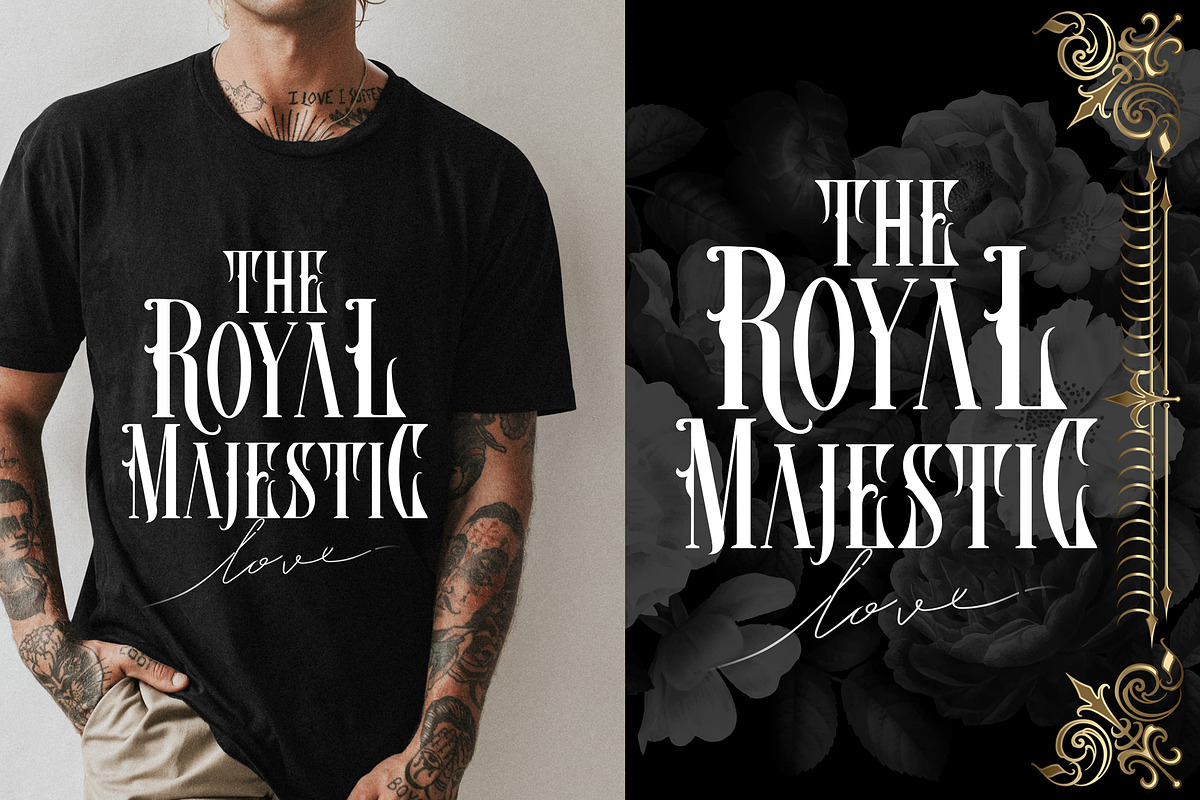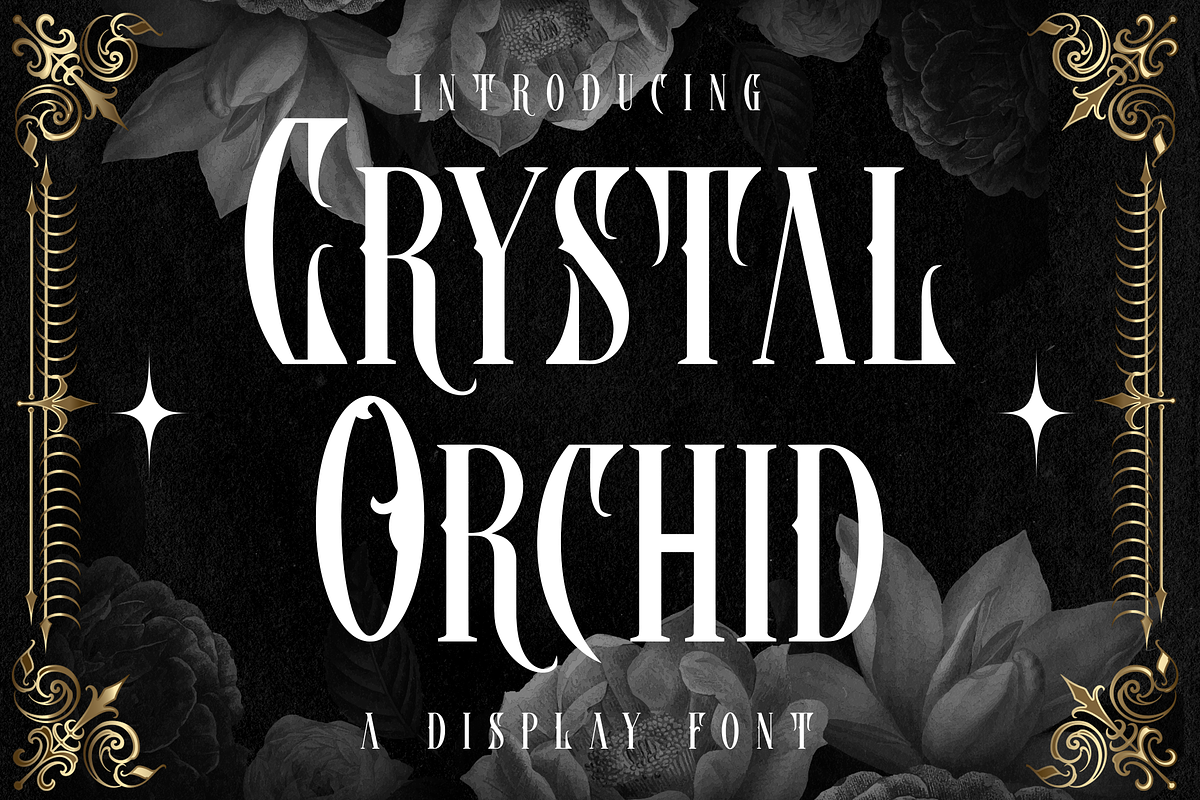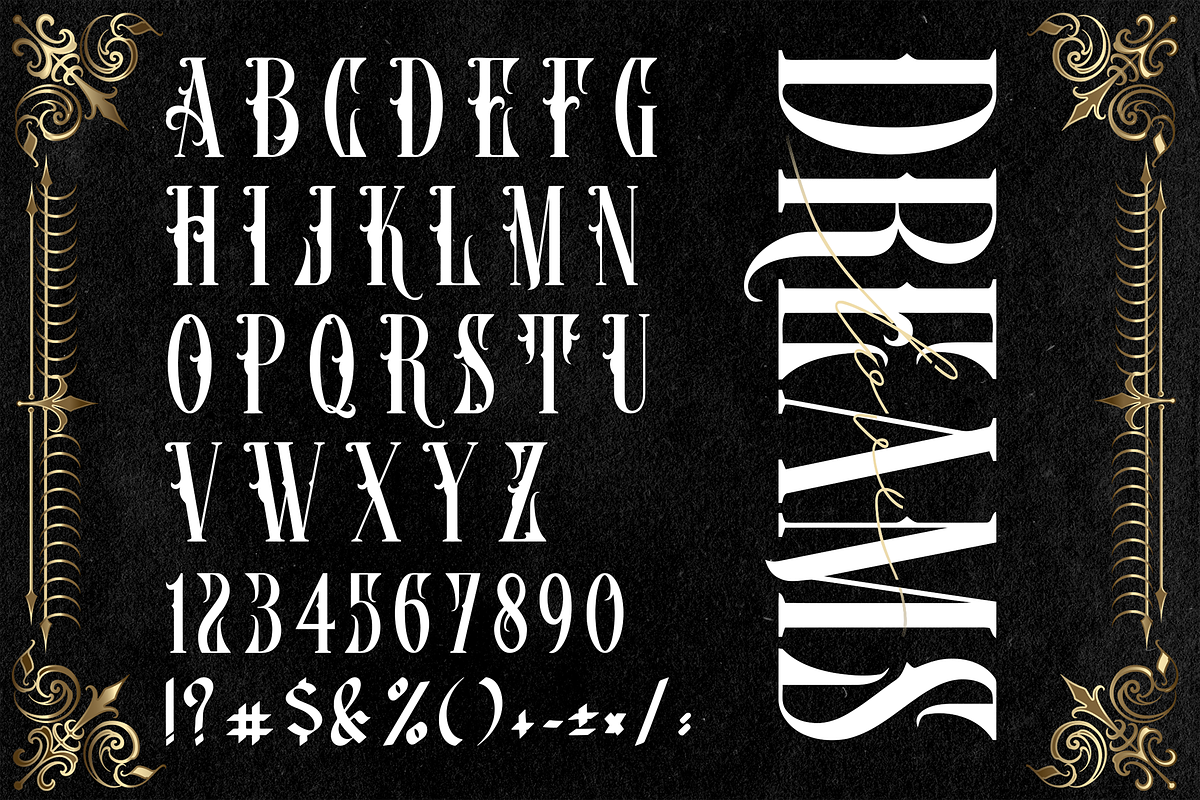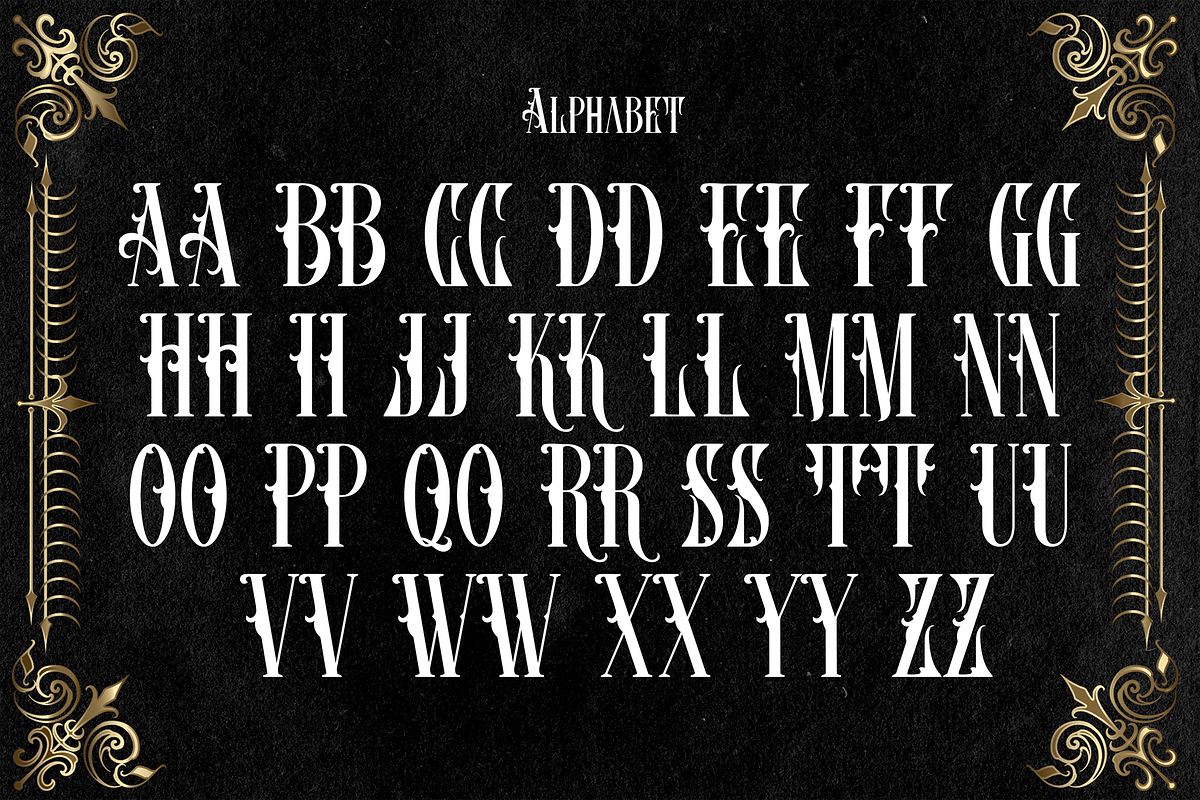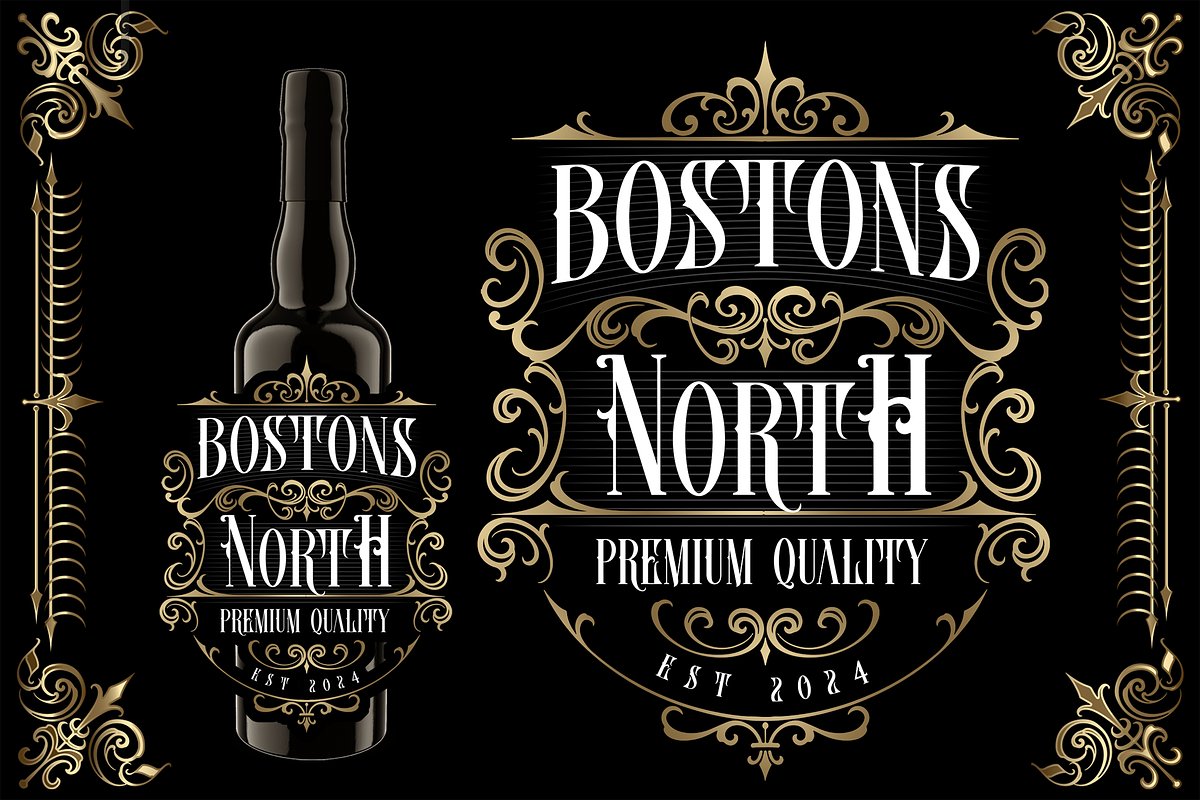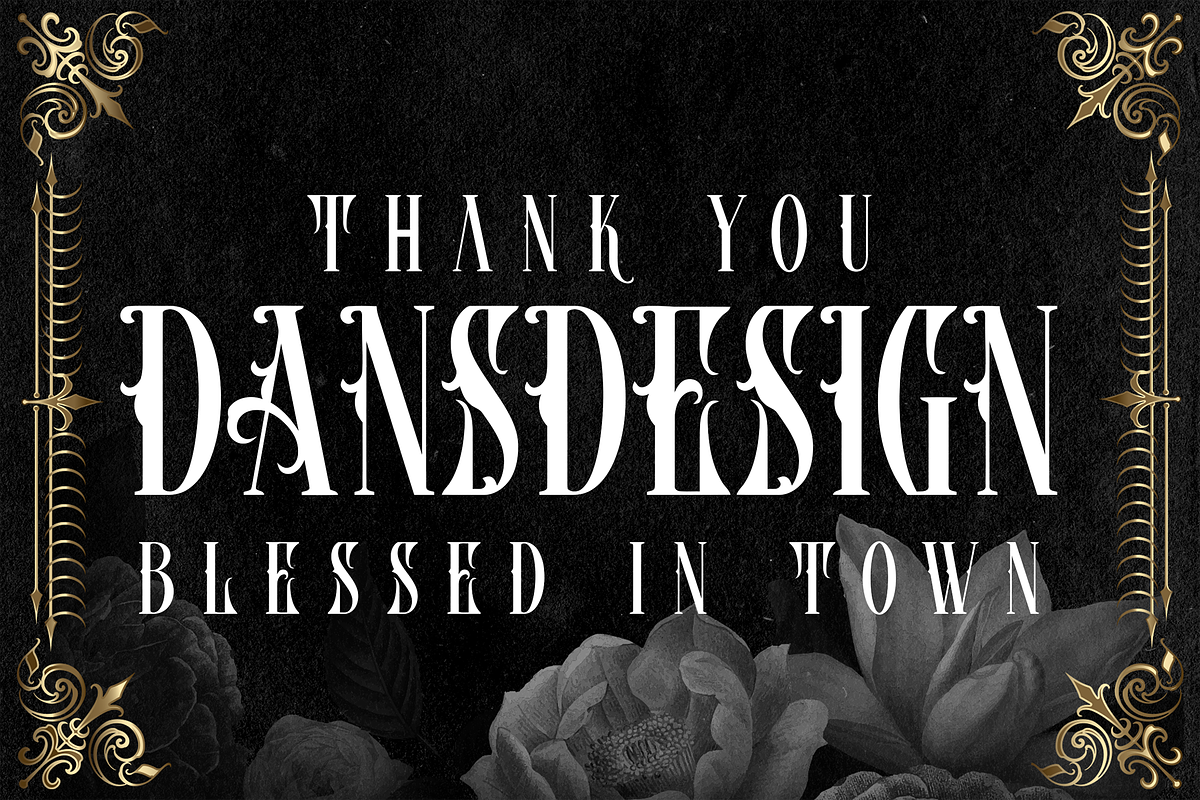
Crystal Orchid Display Blackletter
Crystal Orchid Display Blackletter Font
Crystal Orchid Display Blackletter Font a distinct, highly detailed, and chic Blackletter font. It would make a great choice for exquisite retro-urban designs, tattoo business branding, logos, vintage designs, and more.